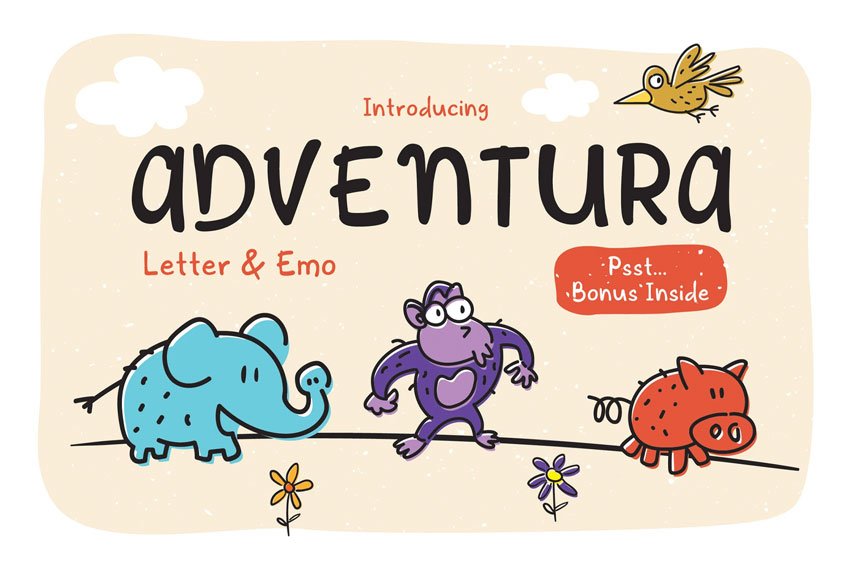
Adventura Letter & Emo Font is hand-written typeface inspired by hand-written letter. Adventura Letter & Emo designed to make your design have more personal touch.
Adventura Letter & Emo ideal for logos, handwritten quotes, product packaging and merchandising. The Emo characters in PNG & SVG formats are a welcome bonus with this typeface.